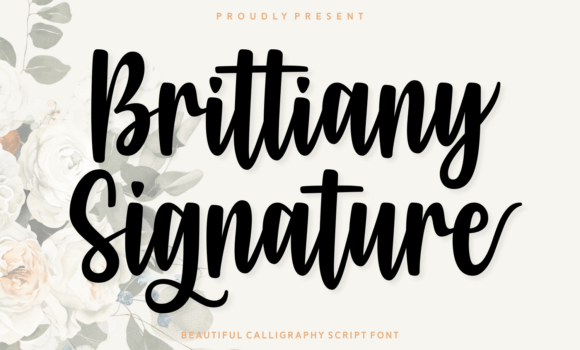
brittiany
Brittiany Signature Font - Featured Image
Brittiany Signature Font – Free Download Introduction to Brittiany Signature Font Brittiany Signature is a stunning bold calligraphy font with a modern and elegant style. 📸 Preview Gallery 4 images 📌 Product Name Brittiany Signature Font 👤 Author Creative Fabrica